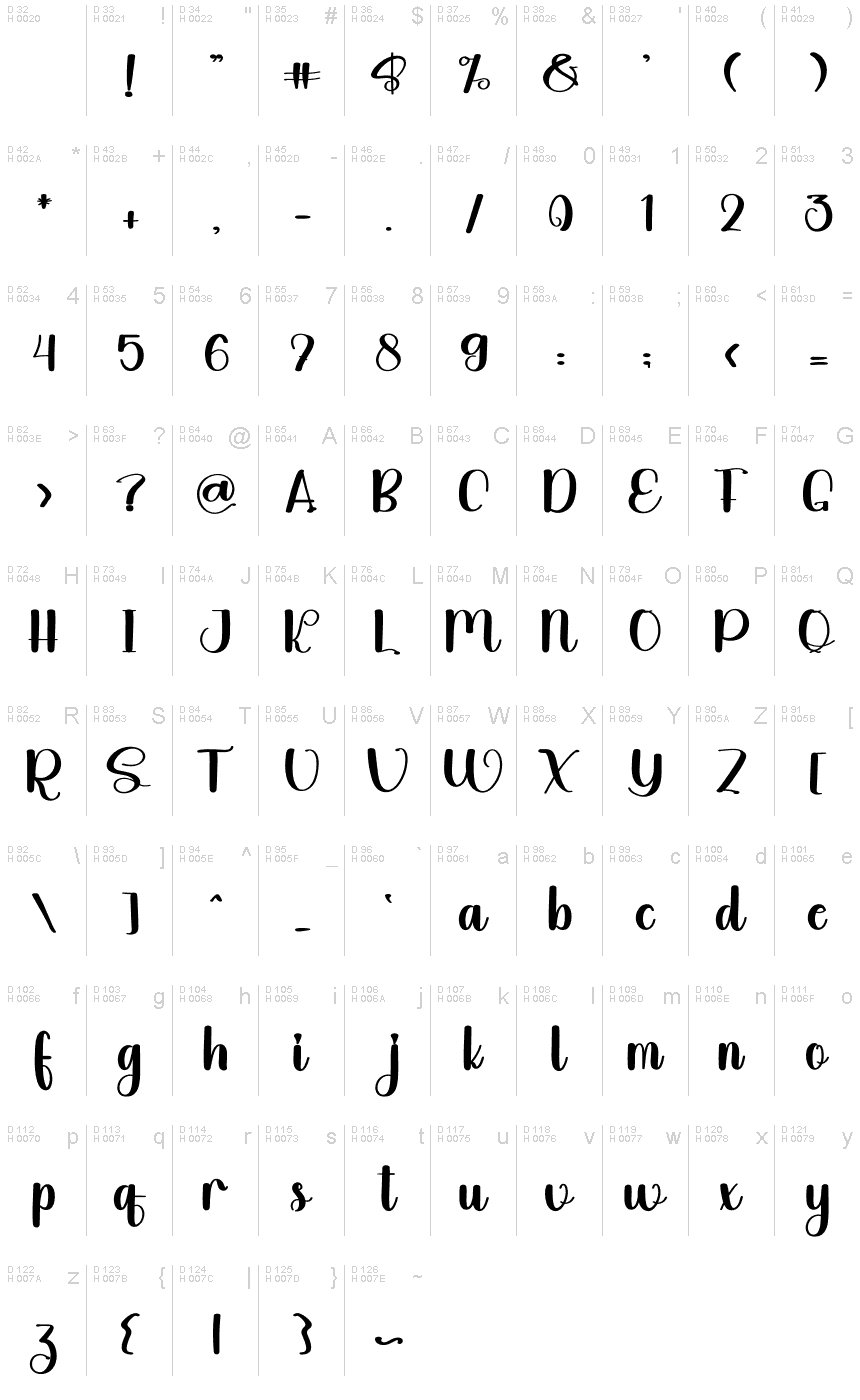
Bringlest
Bringlest, designed by Inermedia Studio, invites you to experience the charm of personal touch in digital typography. This handwritten font boasts a unique character that is both inviting and expressive, capturing the essence of human touch within its letterforms. With its fluid strokes and varying line weights, Bringlest exudes a casual elegance that makes it perfect for projects requiring a personal, handcrafted feel.
The aesthetic appeal of Bringlest lies in its balanced imperfection - each letter showcases a subtle variance that mimics natural handwriting. This quality lends an approachable warmth to any design, making it ideal for branding, invitations, greeting cards, and more.
Whether you're crafting an intimate wedding invitation or adding flair to your social media graphics, Bringlest's versatility ensures it's well-suited for an array of creative undertakings. Its style resonates with those looking for authenticity and a human touch in their visual compositions. Embrace the distinctiveness of Bringlest to elevate your designs with the genuine beauty of handwritten artistry.